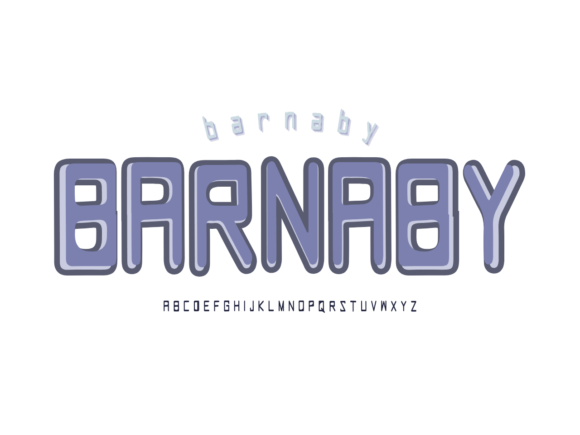
Prepare yourself to be captivated by Barnaby Font, the playful display font that exudes an irresistible charm and promises to elevate your creative expressions to new heights. Step into a world of delightful designs, where every letter dances with joy and invites you to embark on an enchanting journey of visual storytelling.
Crafted with meticulous attention to detail by the talented Pukka De, Barnaby Font possesses an unmistakable character that sets it apart from the ordinary. Its rounded edges and whimsical curves evoke a sense of childlike wonder, making it the perfect choice for adding a touch of playfulness to your projects.
Whether you're a seasoned designer or just starting your creative adventure, Barnaby Font is your trusty companion, ready to bring life to your ideas. Its versatility knows no bounds, effortlessly adapting to a myriad of design endeavors. From eye-catching logos and branding elements to captivating social media posts and website designs, Barnaby Font has the power to transform your vision into a captivating reality.
Unleash your creativity and let Barnaby Font guide you through a world of enchanting possibilities. Let your imagination soar as you explore the endless ways to incorporate this charming font into your projects. Its user-friendly nature makes it a joy to work with, ensuring that your creative journey is as smooth and enjoyable as the final product itself.